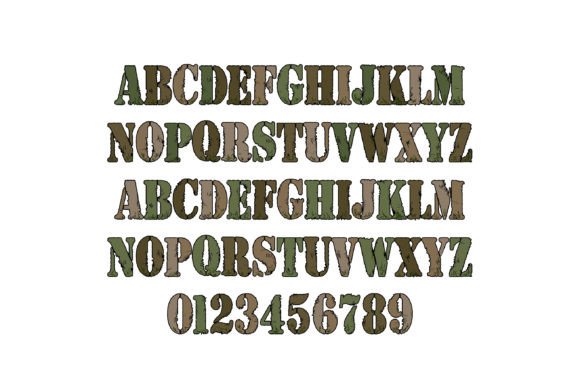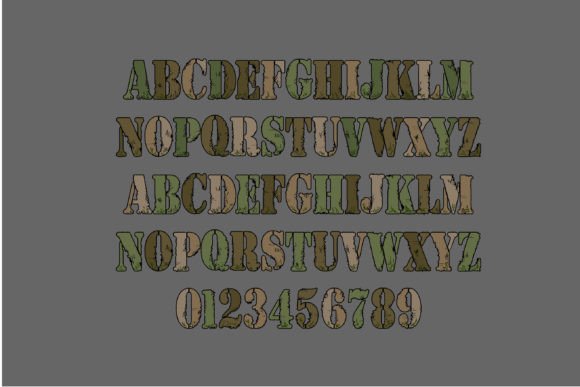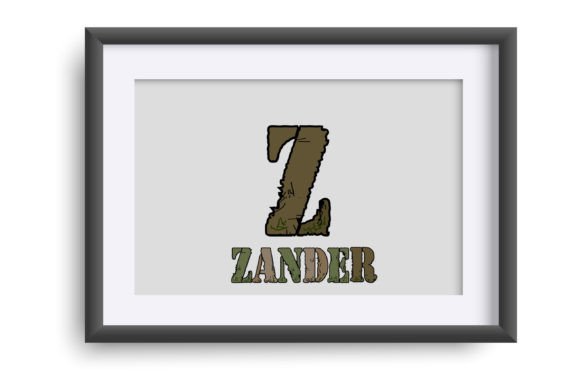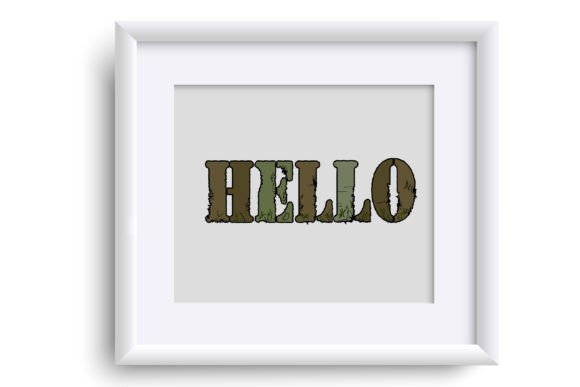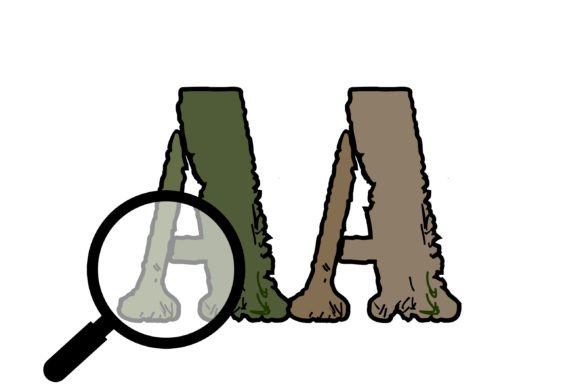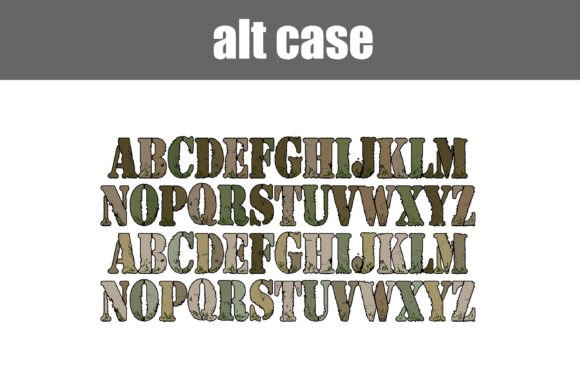
Introducing Army Depot Font: A Grungy, Stenciled Masterpiece for Designers and Crafters
Are you looking for a font that adds a touch of rugged, military-inspired personality to your designs? Look no further than the Army Depot Font, a full-color font featuring grungy, stenciled lettering in a military color palette. This versatile font is perfect for designers and crafters seeking to add a unique edge to their work.
What Makes Army Depot Font Stand Out?
Army Depot Font boasts a distinctive, grungy aesthetic that is reminiscent of military stencils. The font features a range of colors that give it a bold, eye-catching appearance. But what really sets it apart is its innovative use of OpenType full-color (SVG) technology. This allows the font to display a range of colors and styles, making it perfect for creating anything from simple text logos to complex designs.
Key Features of Army Depot Font
- Grungy, stenciled lettering: Inspired by military stencils, the Army Depot Font features a rugged, distressed aesthetic that adds a touch of grit to any design.
- Military color palette: The font’s color scheme is inspired by military uniforms and equipment, giving it a bold, rugged appearance.
- Alt version of each letter: Each letter has an alternate version in a different color, accessible through your system character map. This allows for even more creative flexibility.
- OpenType full-color (SVG) technology: This innovative technology allows the font to display a range of colors and styles, making it perfect for creating complex designs.
Tips for Using Army Depot Font
- Experiment with different colors and styles: With a full range of colors and styles to choose from, don’t be afraid to try out different combinations to find the one that works best for your design.
- Use it for logos and branding: Army Depot Font’s bold, eye-catching appearance makes it perfect for creating simple text logos and branding materials.
- Combine it with other fonts: Try pairing Army Depot Font with other fonts to create interesting contrast and visual interest.
Army Depot Font is a versatile, innovative font that adds a touch of rugged, military-inspired personality to any design. With its grungy, stenciled lettering and range of colors and styles, it’s perfect for designers and crafters seeking to add a unique edge to their work. Whether you’re creating logos, branding materials, or complex designs, Army Depot Font is a great choice.